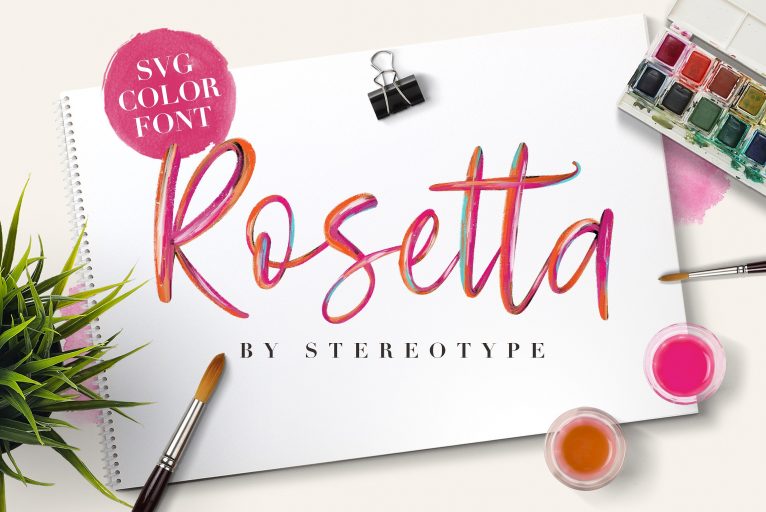
Rosetta SVG Color Font
I am happy to present you a modern brush svg color font. If you are looking for a brush style suited to your design then it’s here! Introducing Rosetta Font. Rosetta SVG Color – With it’s painted texture and a great color scheme, you’ll be able to create fantastic graphic titles for your documents. In a few quick steps, you’ll have the possibility to change the color palette to obtain exactly what you want! Check my video in the thumbnails to see how it works. In one word: easy!
Rosetta Black – This font contains exactly the same glyphs and design but this is the solid version, without any color. It works like any other .ttf font, with your favourite app.